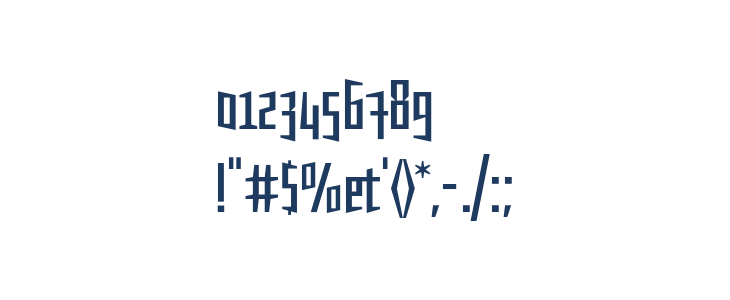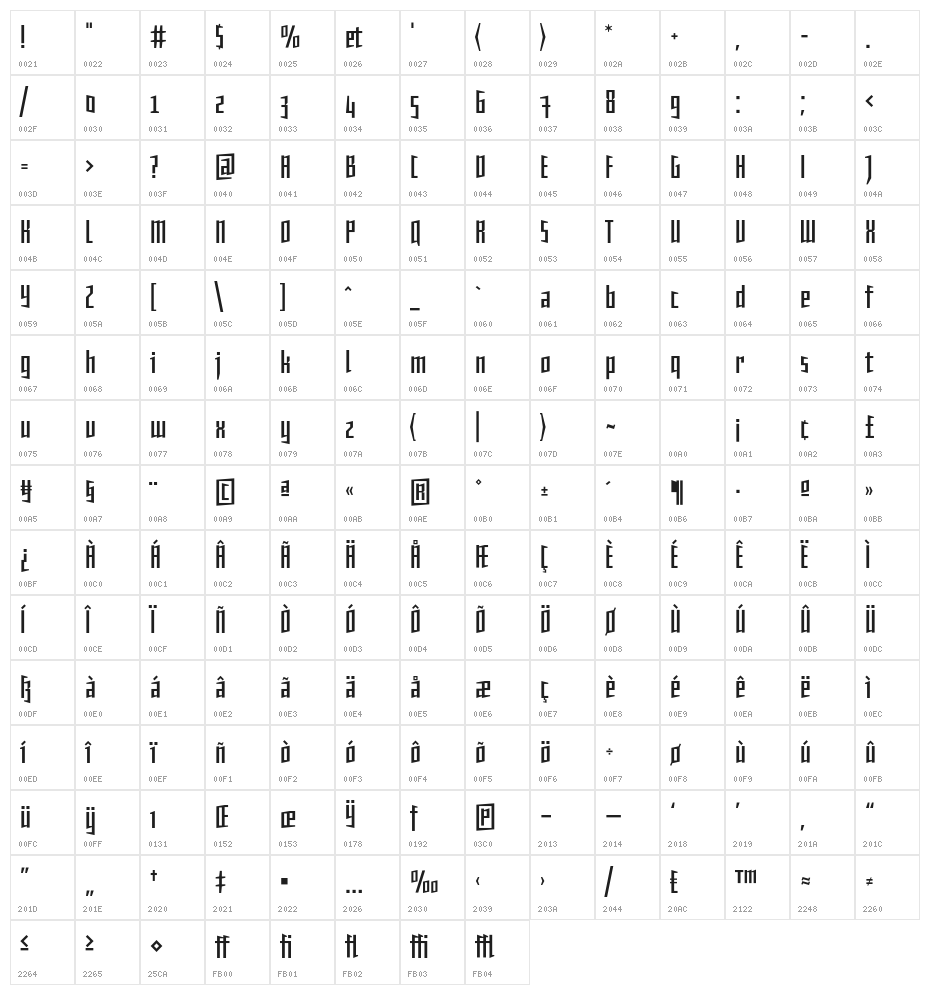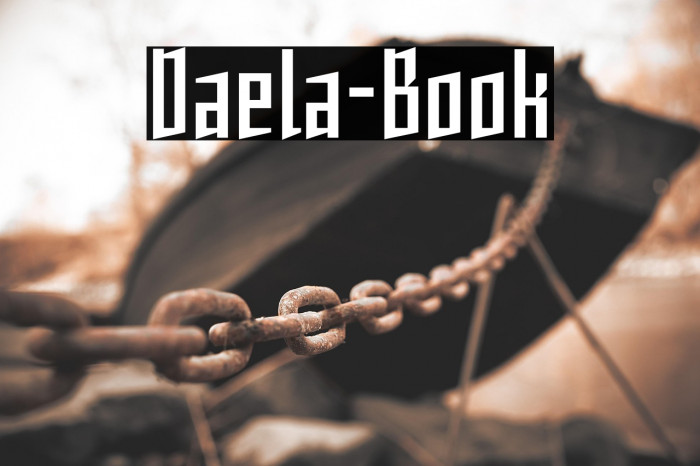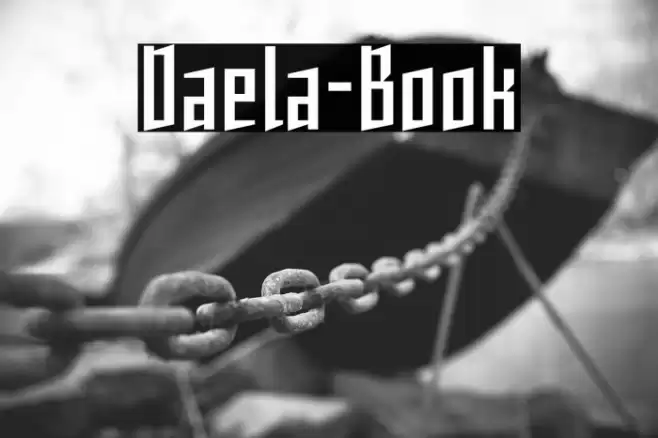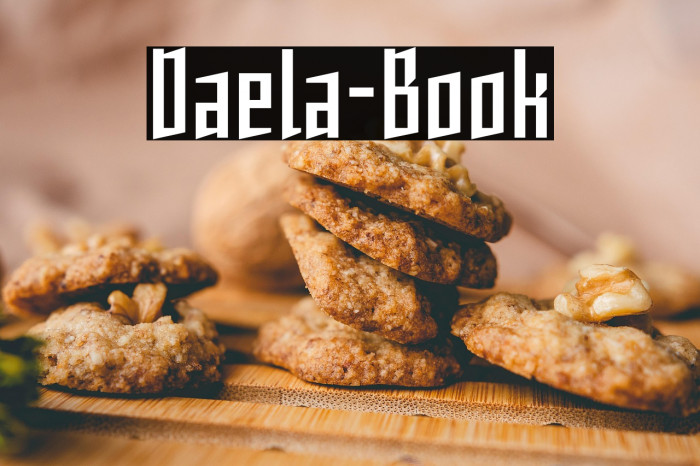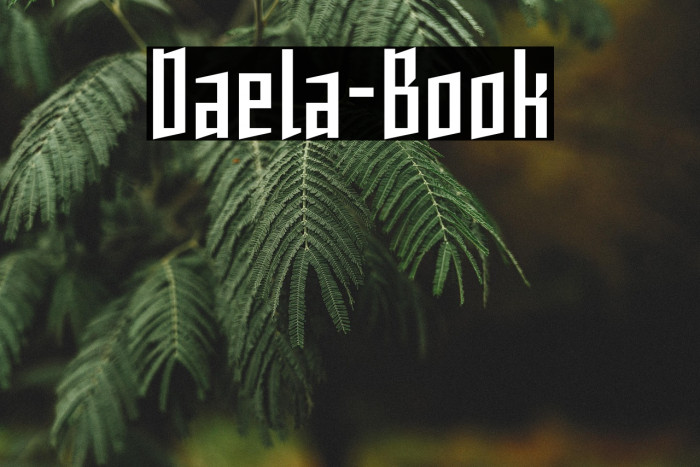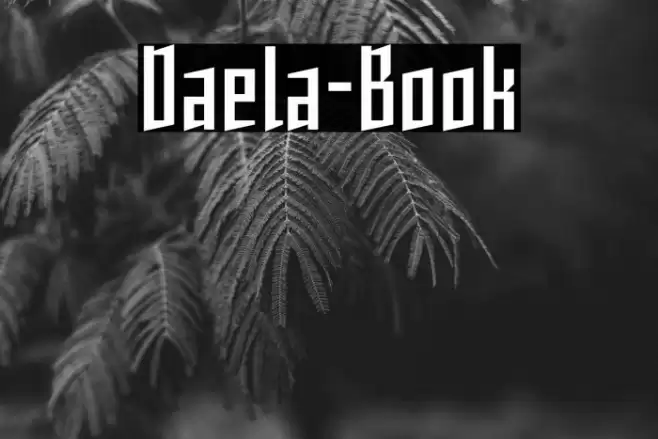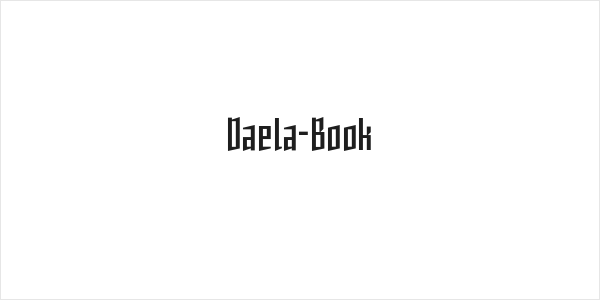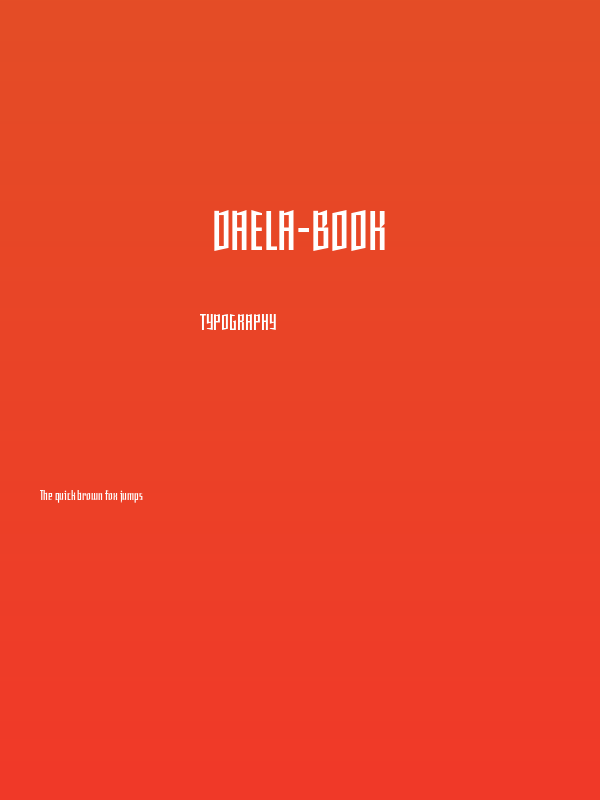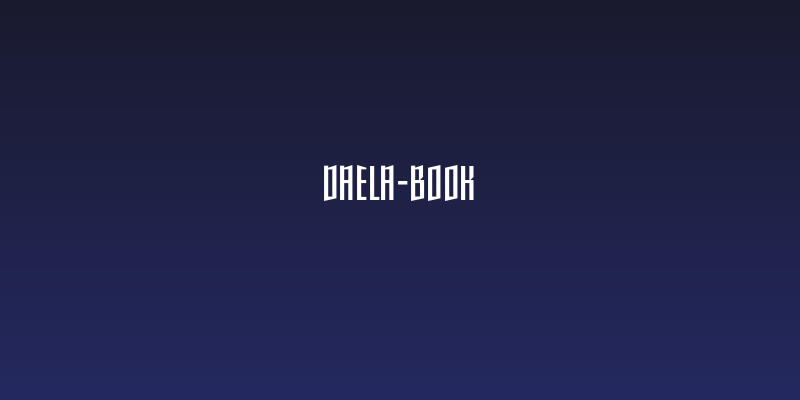
Daela-Book Font
Daela-Book Description
This font features a bold, angular design with a modern and edgy appearance. The uppercase letters are tall and narrow, with sharp edges and a slight slant that gives them a dynamic feel. The lowercase letters maintain the same angular style, providing a cohesive look across both cases. Numbers are similarly styled, with a consistent height and sharp angles that mirror the letterforms. Special characters are distinct and maintain the overall geometric theme. The font's unique style makes it stand out, ideal for projects that require a strong visual impact.
| Proposed Projects | Ideal for branding, posters, album covers, and any project needing a strong, modern aesthetic. |